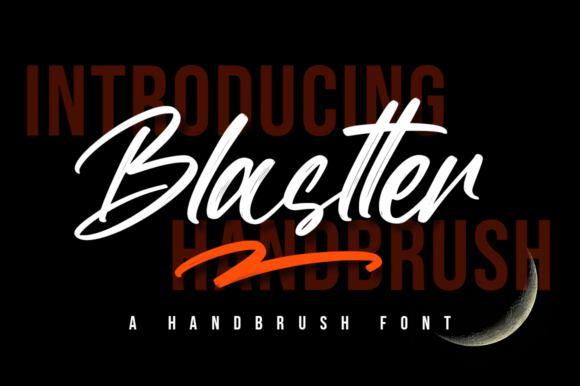
Unleash Your Creativity with Blastter Font
Have you ever stared at a blank canvas, waiting for the perfect idea to strike? For designers, those moments of creative clarity are what make all the late nights and early mornings worth it. And sometimes, all it takes is the right font to spark that spark. Enter Blastter Font, a bold and playful handwritten font that’s guaranteed to add some serious oomph to your designs.
Blastter Font is more than just a pretty face – it’s a powerful tool that can add a ton of nostalgic character to your work. Whether you’re designing a new logo, creating a social media campaign, or crafting a stunning piece of art, Blastter Font is the perfect companion to help you bring your vision to life.
Blastter Font Key Features
- Font Family: Blastter Font
- Unique Characteristics: Blastter Font features a unique, distressed aesthetic with a mix of bold and rough textures, ideal for use in logos, branding, and display typography.
Blastter Font Review
As a designer, I was excited to dive into the Blastter Font and see what it had to offer. Overall, I think it’s a solid choice for certain projects, but it’s not without its limitations. Here’s my honest review.
- Unique personality: The Blastter Font has a distinct, energetic vibe that’s perfect for projects that need a bold statement.
- Well-crafted letters: Each letterform is carefully designed to create a cohesive look that’s both fun and professional.
- Flexibility: The font is available in a range of weights, making it easy to adapt to different design needs.
- Not ideal for body text: While the Blastter Font is great for headlines and titles, it’s not the most readable font for large blocks of text.
- Limited language support: The font may not include all the necessary characters for certain languages, which could be a problem for global projects.
- Not suitable for small sizes: The font’s bold lines and intricate details can become difficult to read at small sizes.
The Blastter Font is a fun, attention-grabbing choice that’s perfect for projects that need a bold statement. While it has some limitations, it’s still a great addition to any designer’s toolkit. Just be sure to use it wisely and pair it with a more readable font for body text.
Tips for Getting the Most Out of Blastter Font
Use Blastter Font for headings and titles to create a bold and eye-catching design. Experiment with different font sizes and colors to create visual hierarchy and emphasis. Combine Blastter Font with other fonts for a unique and stylish look.
Blastter Font is ideal for creating attention-grabbing headlines, titles, and labels. It’s also perfect for use in social media graphics, advertising materials, and marketing campaigns. Use Blastter Font to add a touch of modernity and sophistication to your designs.